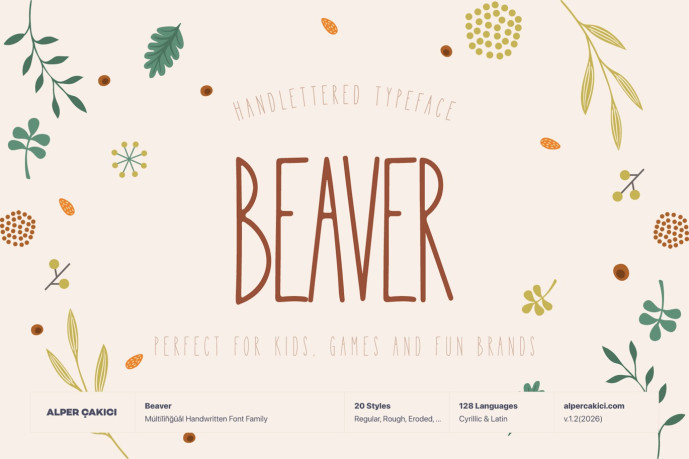
Beaver is a cheerful handwritten typeface family with a cute, handmade personality and a playful, doodle-inspired spirit. Designed to feel warm, natural, and expressive, Beaver captures the charm of real handwriting while staying clear, readable, and versatile for everyday design use.
The family includes 20 distinctive styles, ranging from clean and friendly to textured and expressive. Styles such as Regular, Italic, Angular, Brush, Pencil, Liner, Chalk, Graphite, Wax, Rough, and Eroded—many with matching italics—offer designers a rich toolbox for creating lively visual voices. Whether you need something soft and casual or bold and tactile, Beaver adapts easily to different moods and creative directions.
With support for 128 languages across Latin and Cyrillic, Beaver is well suited for international and multilingual projects.